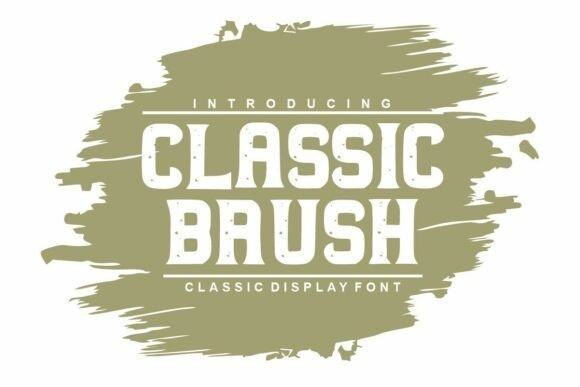
Classic Brush Font
Designer: fana studio
Classic Brush Font is a bold and rugged varsity-style typeface, inspired by classic college lettering and retro sports aesthetics. Featuring a worn texture and strong letterforms, this font is perfect for vintage designs, college logos, sports branding, apparel, posters, t-shirts, badges, labels, and retro-themed projects.
This font delivers an authentic old-school college feel with a modern grunge twist, making your designs stand out with character and strength.